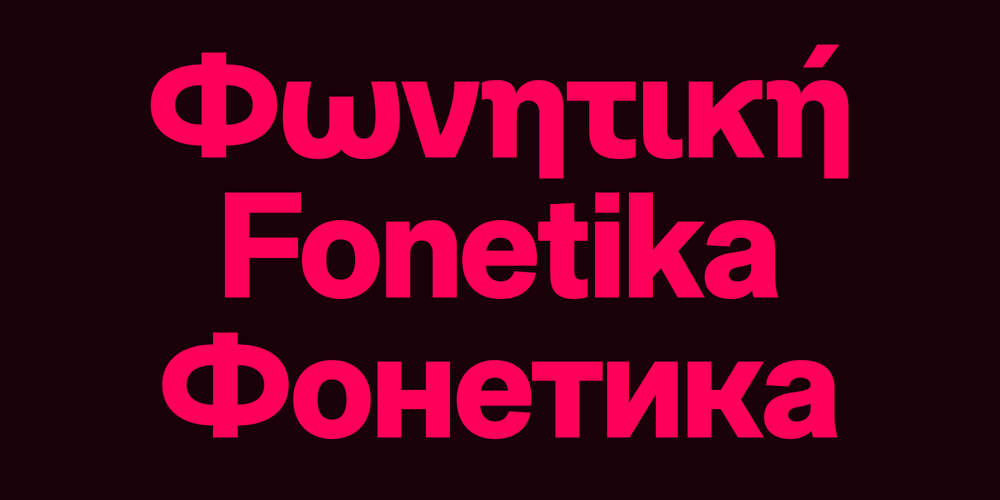
Fonetika
Fonetika font
Fonetika Font Family was designed by Gumpita Rahayu and published by Tokotype. Fonetika contains 18 styles and family package options. Fonetika is a contemporary sans-serif typeface that combines classic neo-grotesque influences with modern typographic traits. Evolving from early sans-serif forms, this typeface provides an emerging approach to readability and adaptability. Fonetika mixture creates a font family that combines timeless qualities while meeting the demands of modern design while its adaptability allows users to seamlessly integrate the font into a variety of communications and media. The main usage of Fonetika is to ensure legibility for clear and concise communication in both display and text-based typographic applications. From creating appealing commercials to enhancing digital and printed layouts, Fonetika is a robust option for a range of typographic requirements.In addition to its core sans-serif design, Fonetika offers a monospace variant. This monospaced version retains the essence of the main families, ensuring uniform character widths. Ideal for technical documents or any application requiring precise alignment, the monospace variant extends Fonetika’s adaptability to diverse typographic needs.